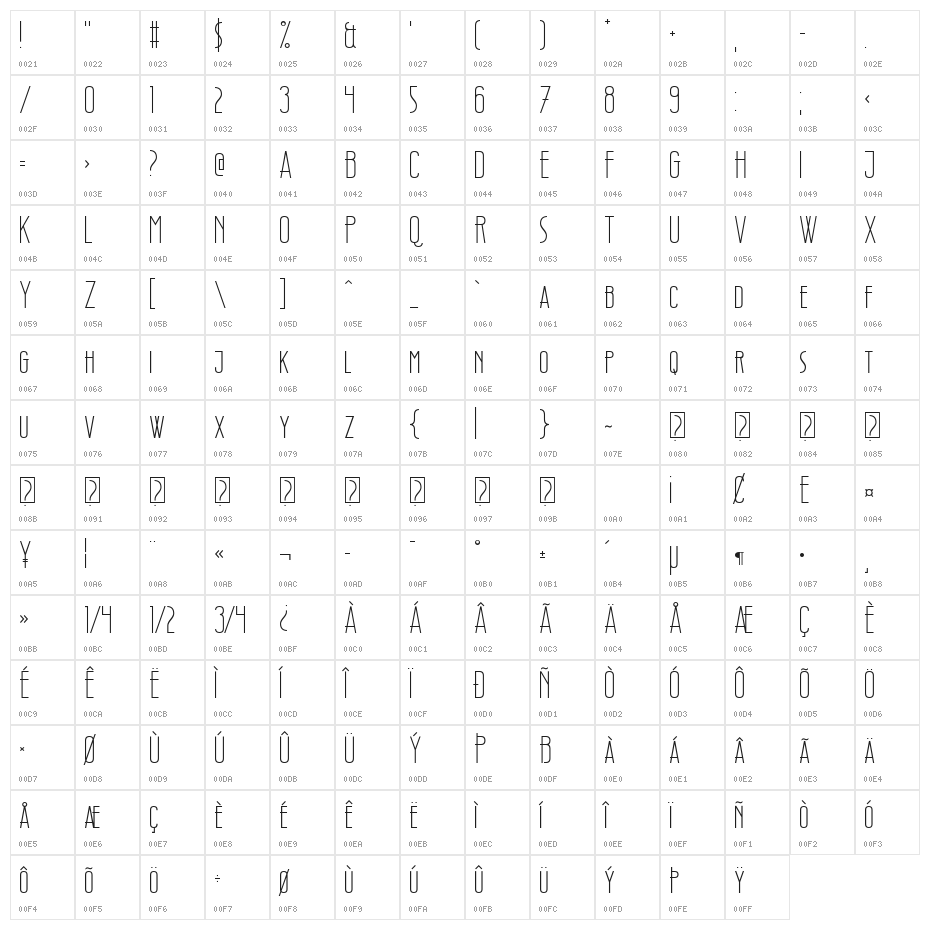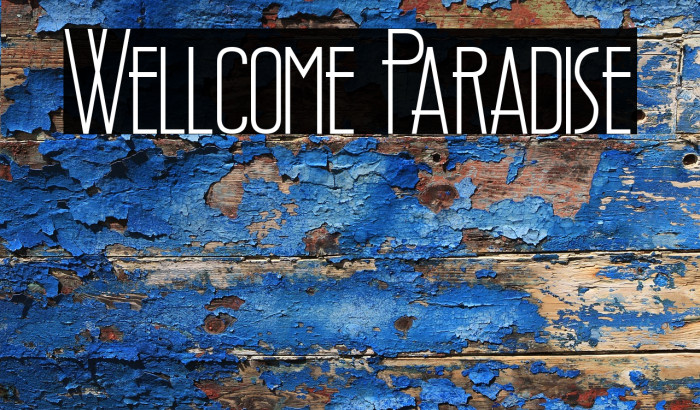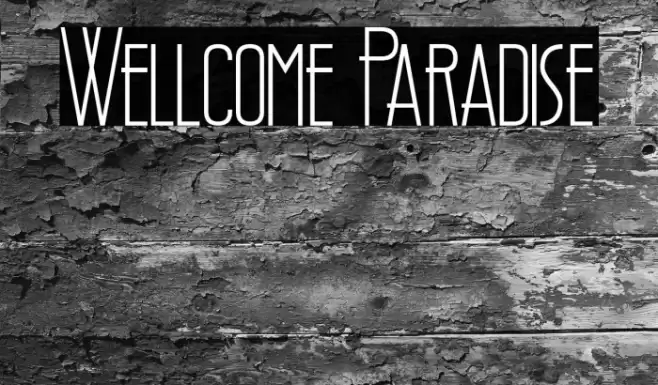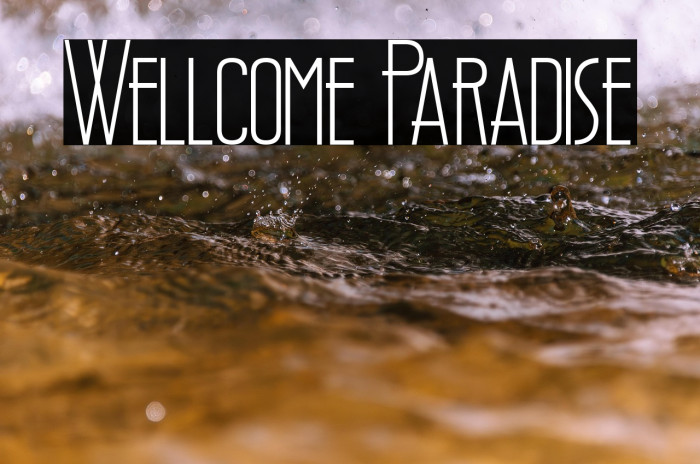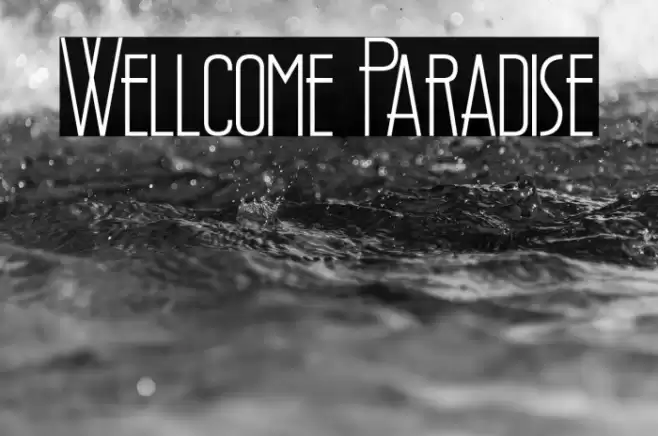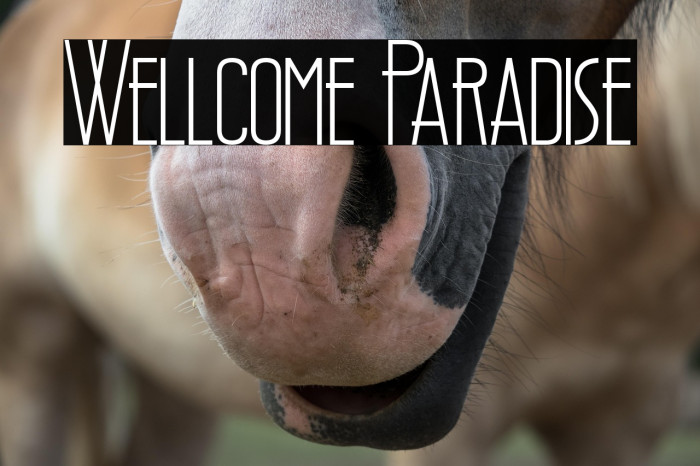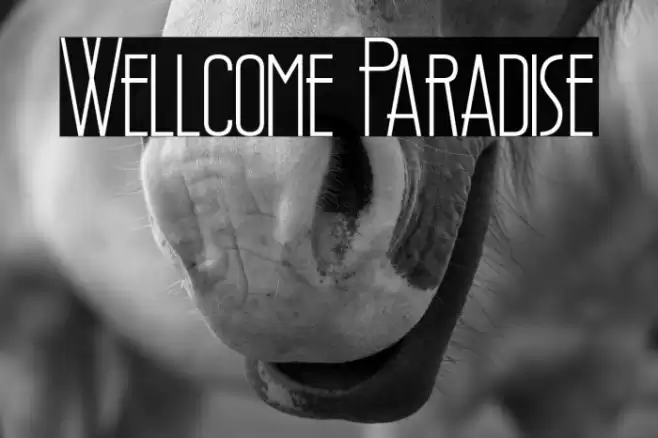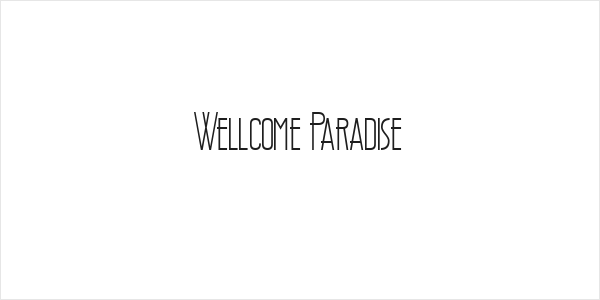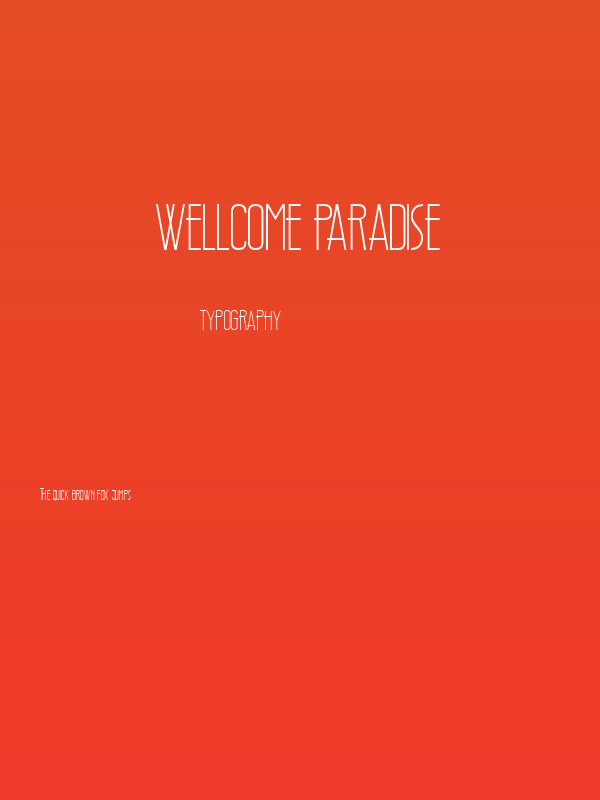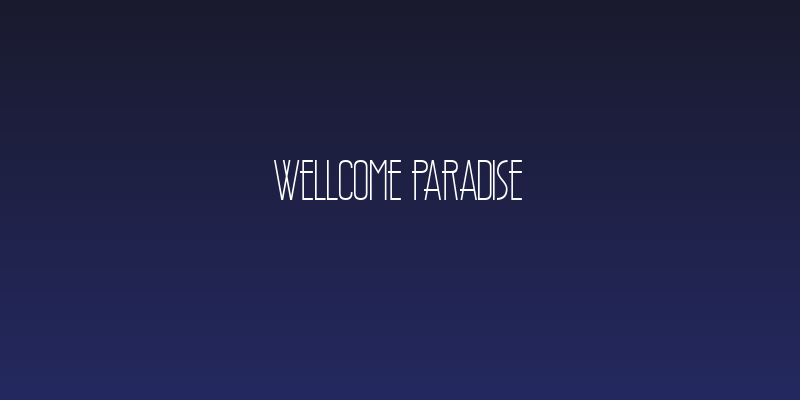
Wellcome Paradise Font
Wellcome Paradise Description
This font features a tall, narrow design with clean, straight lines and a modern aesthetic. The characters are uniformly structured, providing a sleek and sophisticated look. The uppercase and lowercase letters maintain a consistent height, contributing to a cohesive appearance. The numerals and special characters are designed to match the overall style, ensuring versatility across different uses. The font's geometric nature and minimalistic approach make it ideal for contemporary design projects.
| Proposed Projects | Ideal for modern branding, editorial design, posters, and digital media. |